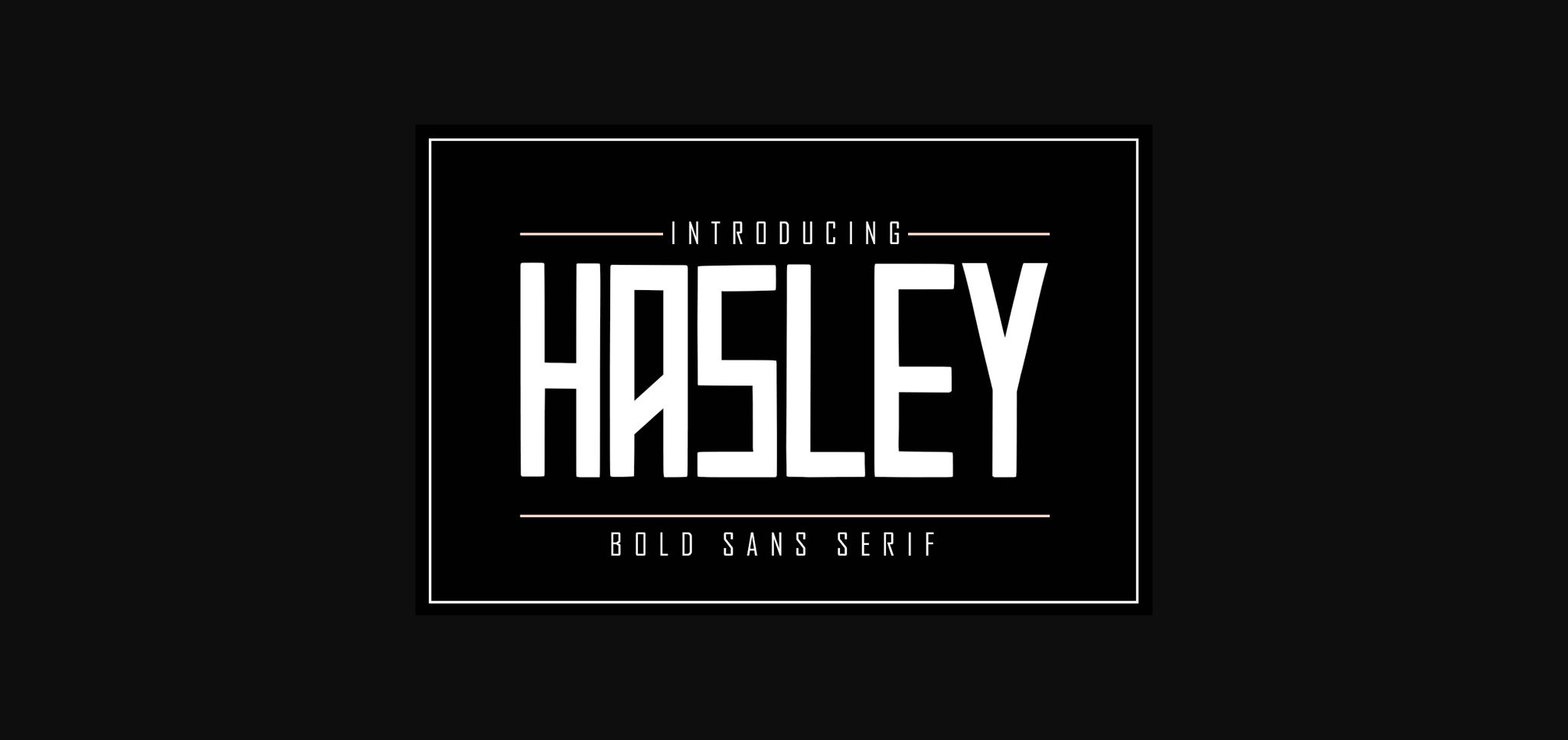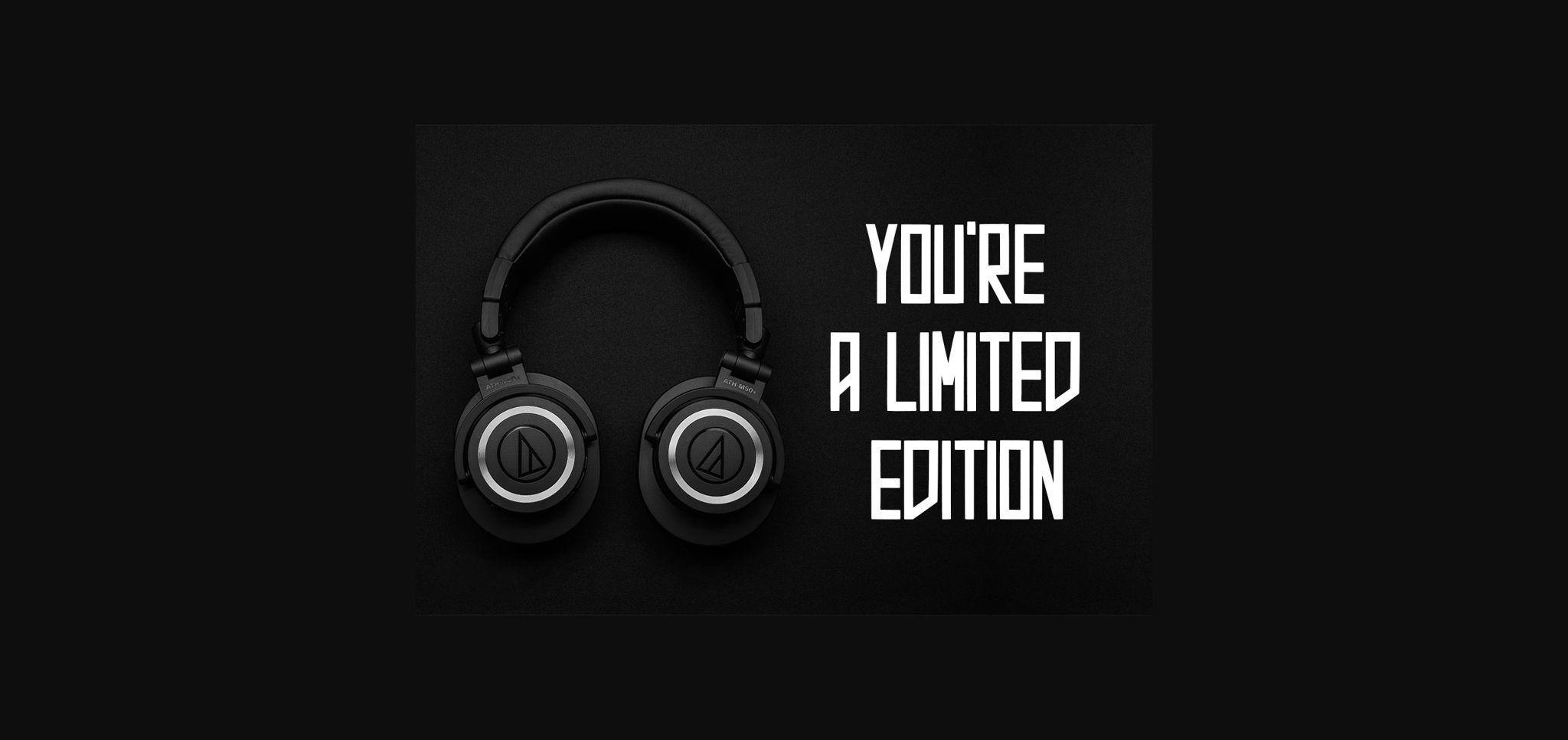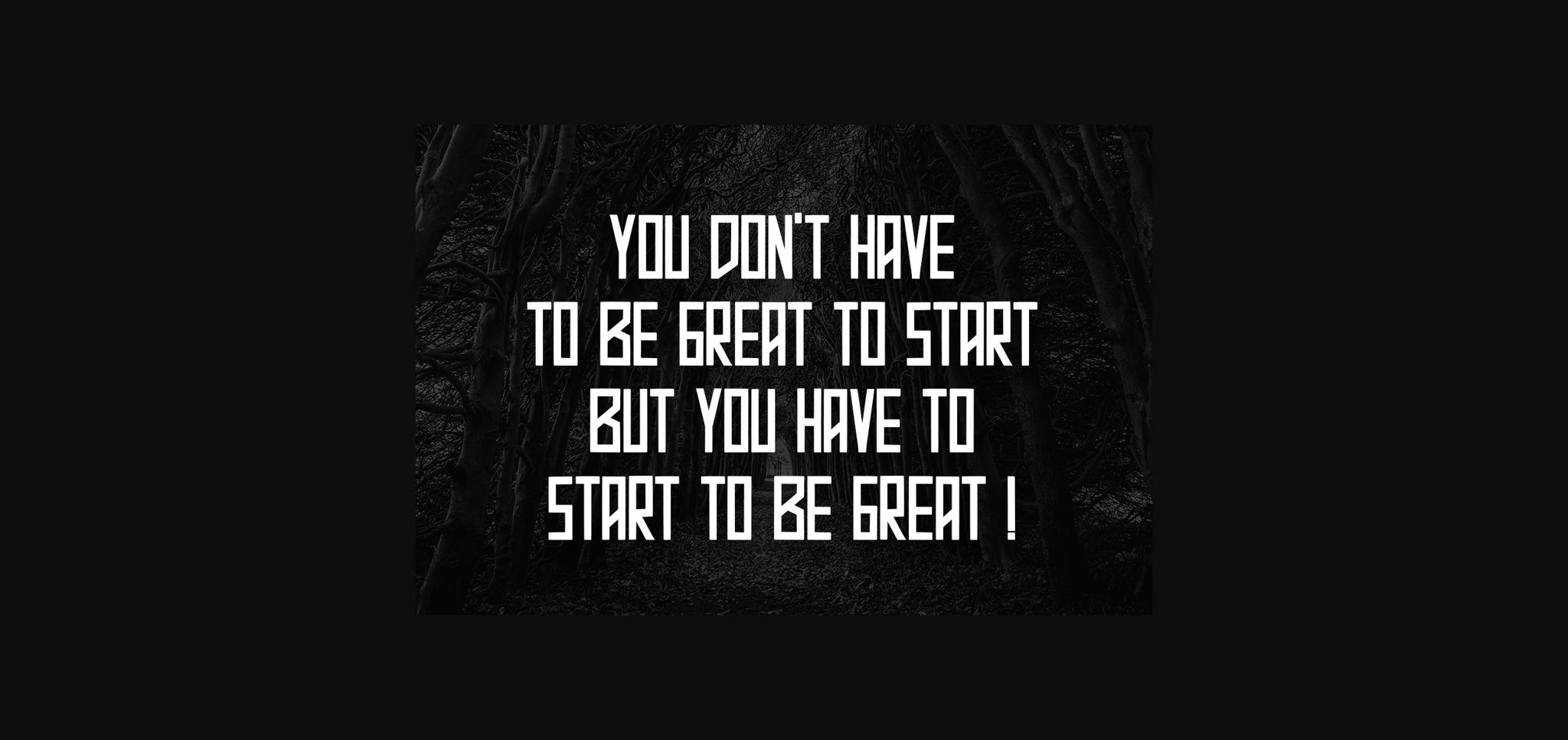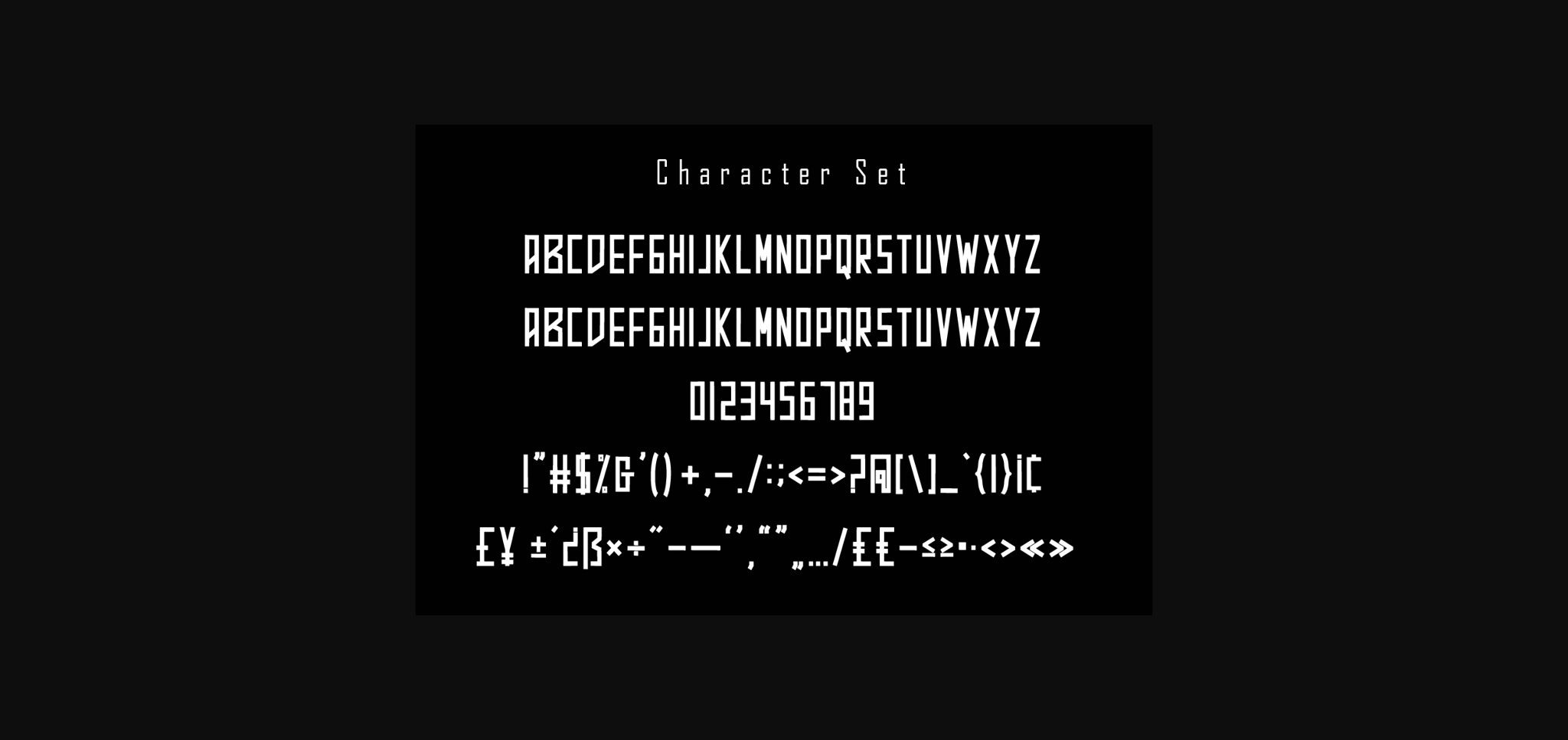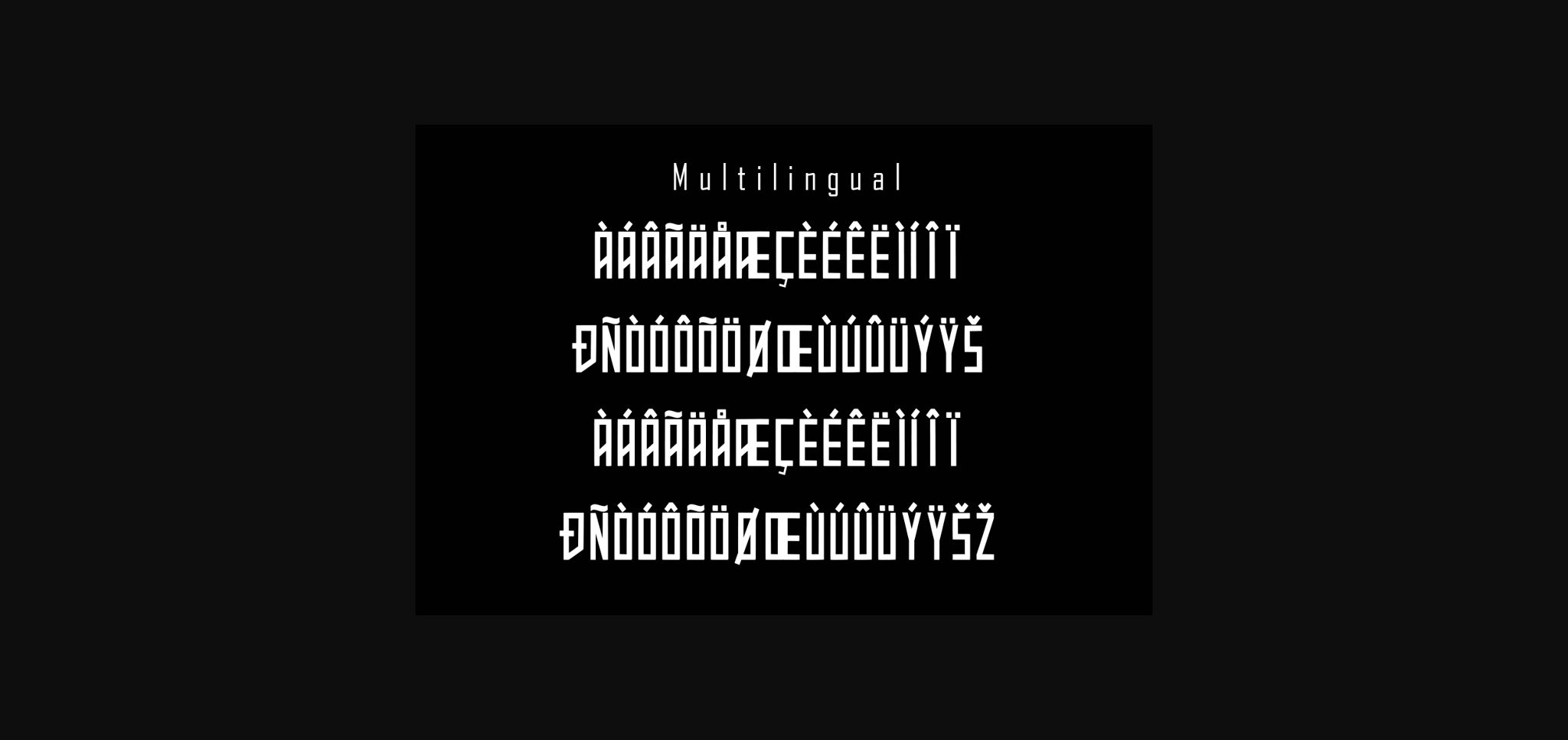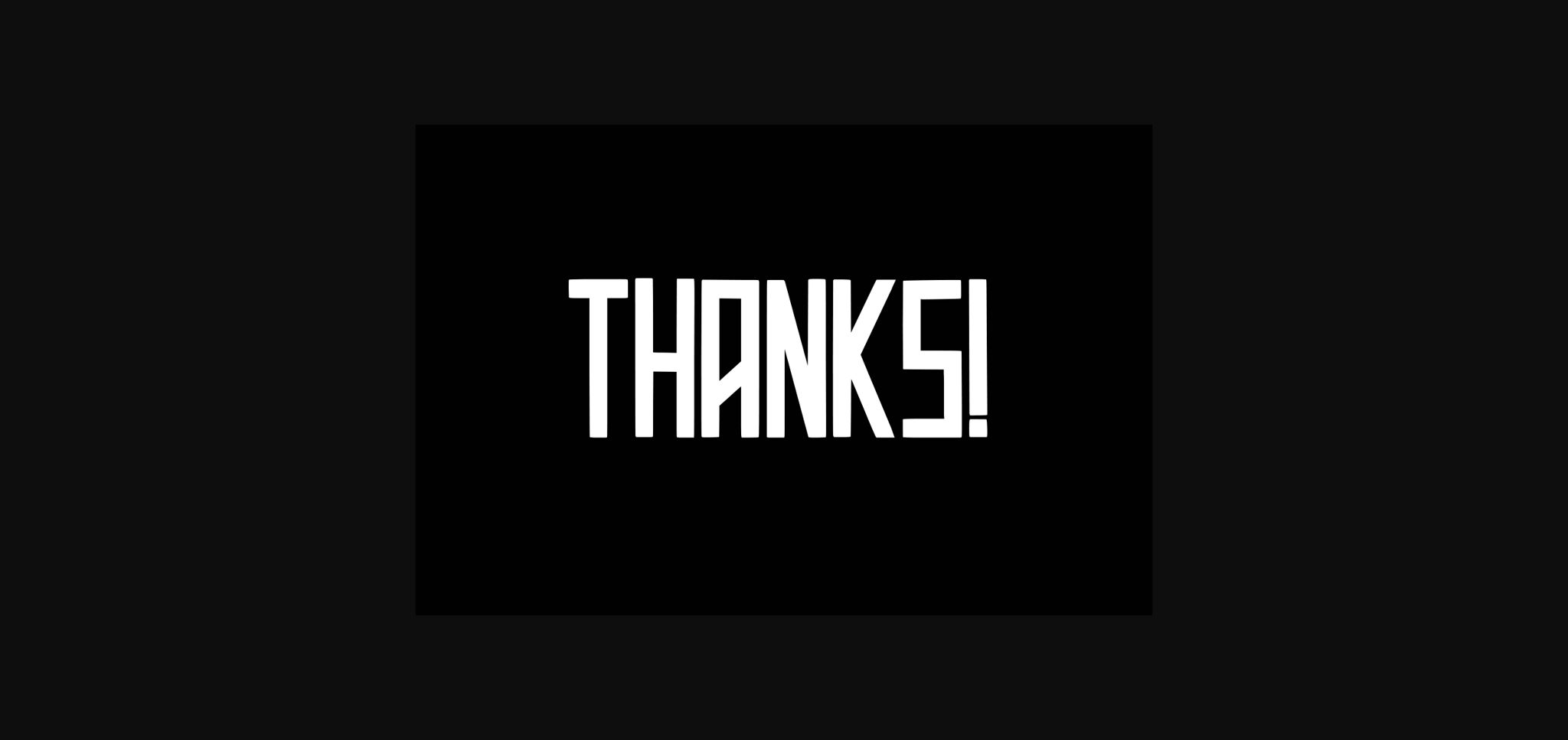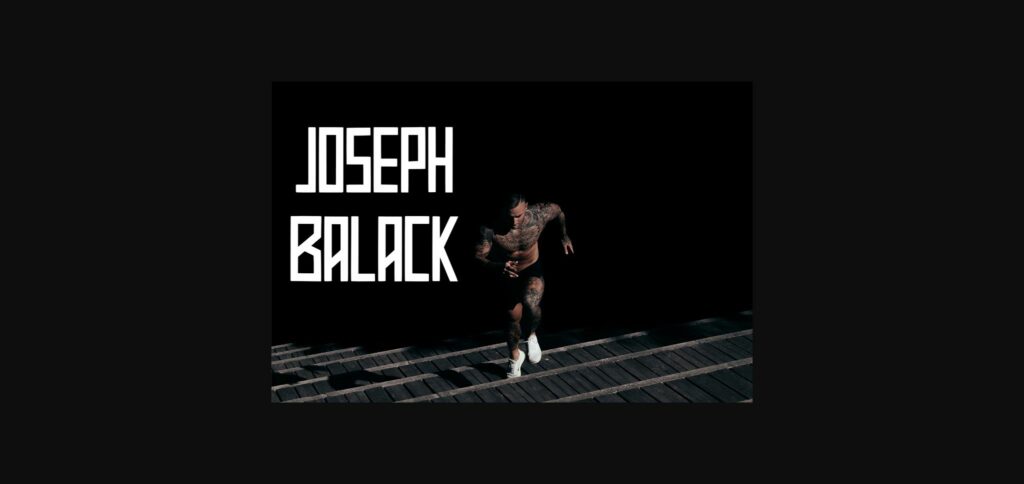
HomeSans Serif FontsHasley Font Sans Serif Fonts Hasley Font FacebookXPinterestWhatsApp 1 of 9 ... Hasley Font Poster 2... Hasley Font Poster 3... Hasley Font Poster 4... Hasley Font Poster 5... Hasley Font Poster 6... Hasley Font Poster 7... Hasley Font Poster 8... Hasley Font Poster 9... About Hasley Font Hasley is a classic sans serif font. Simple and easy to use, this font will be very beautiful if you mix it with your various craft designs. DOWNLOAD NOW People also explored Squeezed Lemonade Font Chicago Doodles The Sunglasses Font Homand Font Movie Credits Font Plausible Font Winter Sweater Font Amanda Birth Flower Duo Font Ticket Font 403 0 TagsHasleyHasley Font Previous articleHeroes FontNext articleAcademy Font LEAVE A REPLY Cancel reply Comment: Please enter your comment! Name:* Please enter your name here Email:* You have entered an incorrect email address! Please enter your email address here Website: Save my name, email, and website in this browser for the next time I comment. Personal Use Free Euphorigenic Personal Use Free Read more about this font Open Store Personal Use Free Read more about this font Lynoselt Personal Use Free Read more about this font Hubbies Personal Use Free Read more about this font BLOG Top 10 Handwritten Fonts That Elevate Your Designs Top 10 Handwritten Fonts That Will Elevate Your Designs Handwritten fonts bring a warm, personal touch to every creative project. Whether you're designing logos, invitations,... Best Fonts for YouTube Videos: Make Your Thumbnails Stand Out Transform Your Website: Elevate Your Typography with 7 Best Web Font Generators Exploring Font Trends